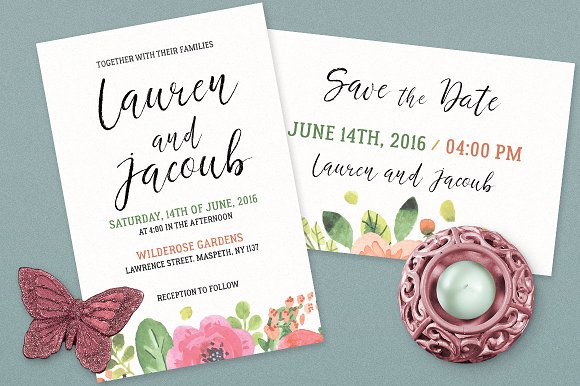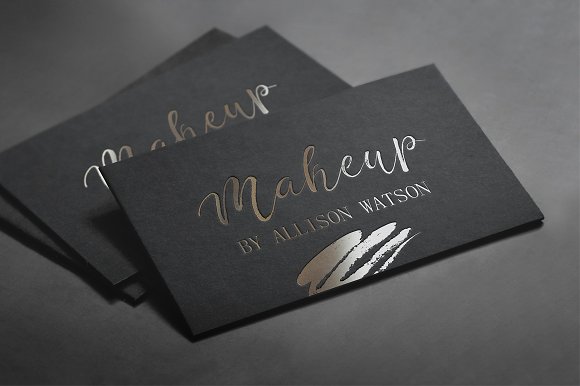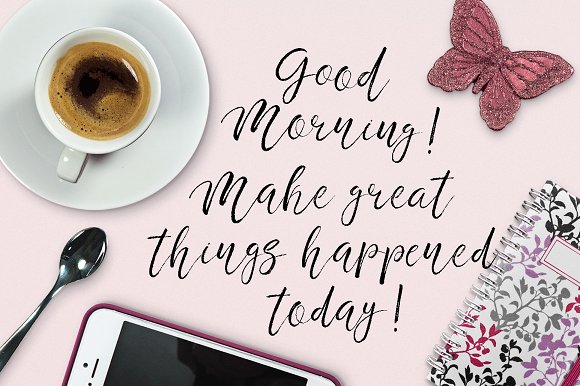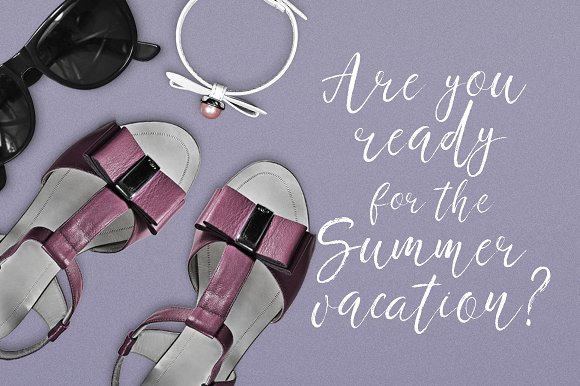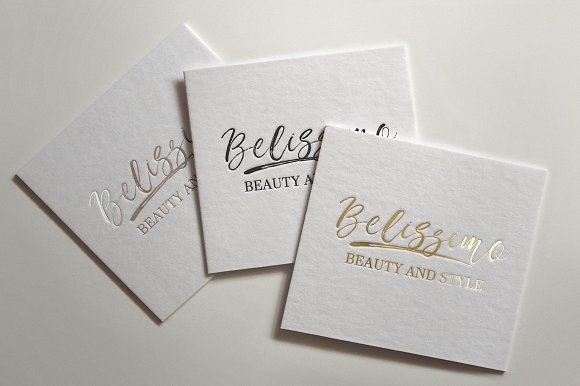
Fashion Society
Fashion Society is a trendy playful font with a brush texture. This font will look awesome on different projects – from branding materials to romantic cards.